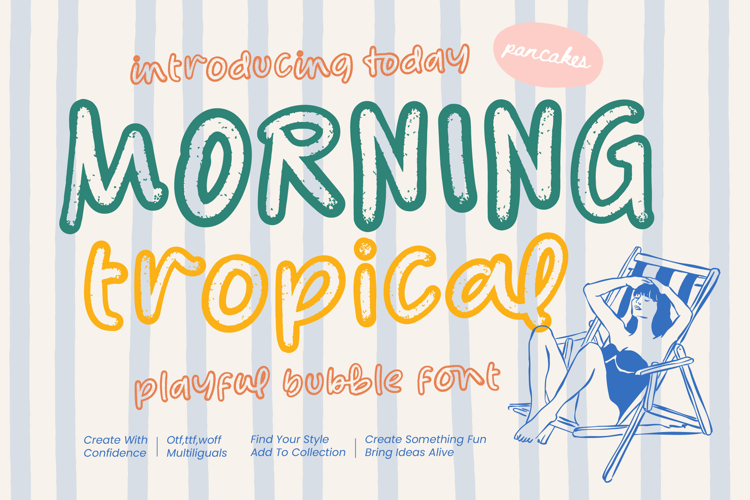
Morning Tropical - Playful Bubble Font
Inject a vibrant burst of energy into your creative projects with a typeface that embodies the spirit of summer. Morning Tropical - Playful Bubble Font is a hand-drawn display font that features soft, rounded edges and a distinctive textured outline, giving it an authentic, organic aesthetic. Its bubbly silhouette provides a friendly and approachable feel, making it the perfect choice for designs that need to communicate joy and creativity while maintaining a professional edge.
Elevate your brand identity with a visual style that demands attention and sparks curiosity across all mediums. This typeface is perfect for dynamic branding, creative packaging, and eye-catching social media graphics that require a lifestyle-focused vibe. Whether you are designing for apparel labels, tropical-themed merchandise, or engaging editorial layouts, Morning Tropical - Playful Bubble Font offers the flexibility to stand out in a crowded marketplace while ensuring excellent legibility.